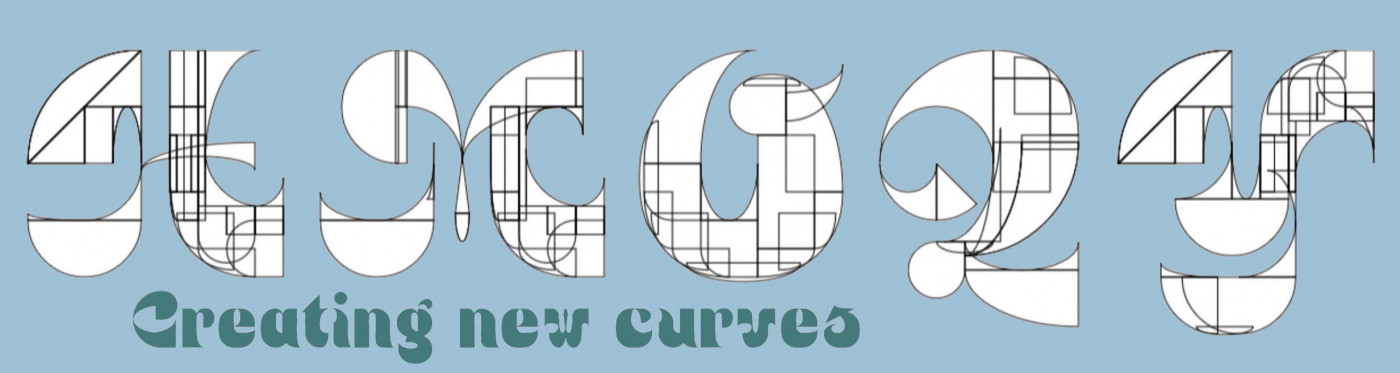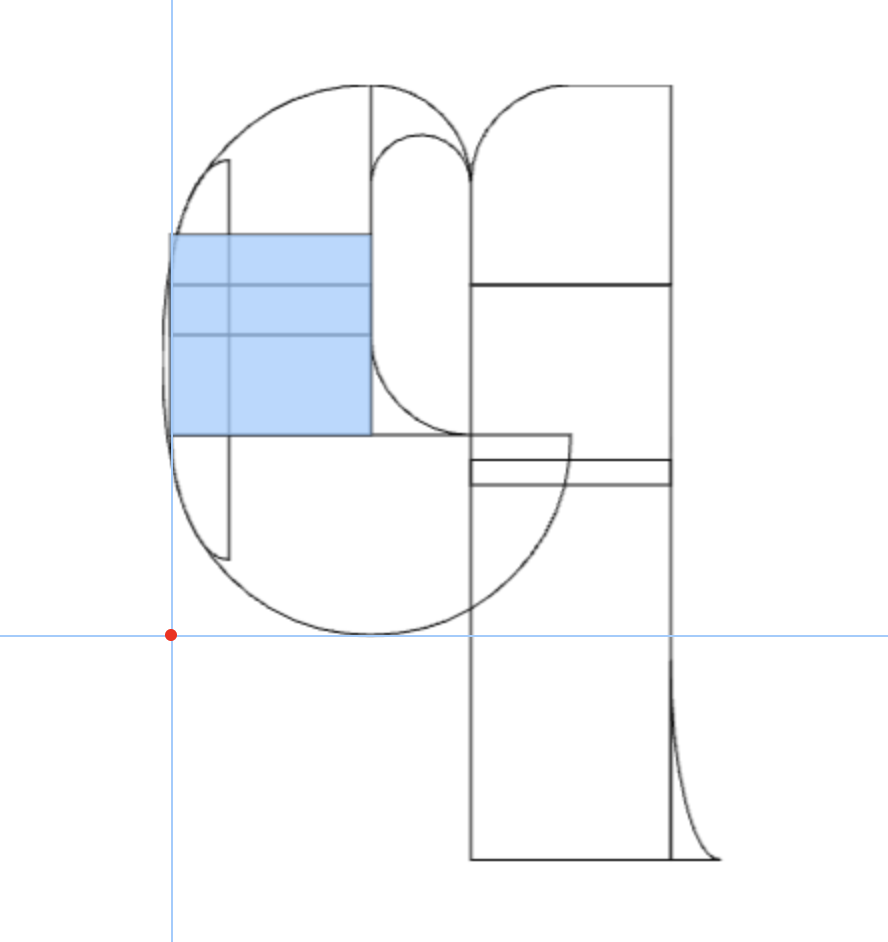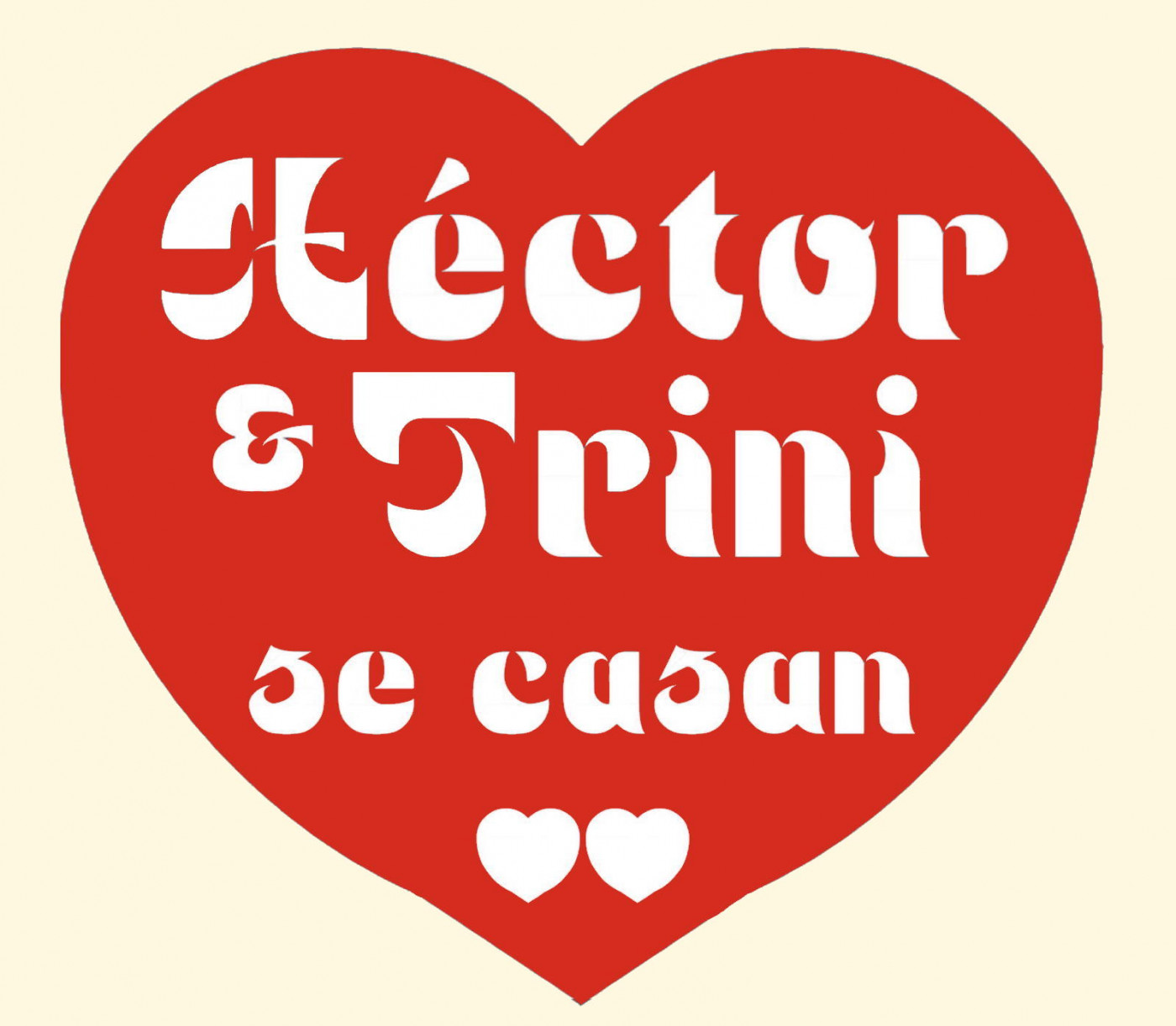
• Esta fuente ha sido hecha para usarla en un día muy especial en la vida de mis adorados Héctor y Trini, que han decidido casarse. ¡Os queremos felices por siempre! ¡Vivan los novios!
Not finished font (kern in progress). An extra "Q" has been added in place of the "©" glyph, and a nice heart symbol appears also at the "™" one. I'll fine-tune some details ASAP, I promise.
This font excels on so many levels. It feels organic, mimics the tradition of handwriting, and radiates genuine happiness. Your style and technique should be taught to young aspiring fontstructors. 10/10
Elmo has ascended to a higher plane
Very your work hard making fonts here, keep on Elmo, you improved a lot! ❤️ 10/10 I see your oldest fonts here, are very good! Keep creating.
Quite a truly excellent font~
Very nice, I had to make me a clone right away :-)
@tortoiseshell & @Peter (Petruuccio): Thank you so much for your kind words and support! Glad you like this multi-curve font. It's hard to achieve smooth "off-format" curves in FS at such a small size, I swear, and many of them could certainly be improved with more time and skill.
Beautifully expressive and internally consistent. Such a brilliant typeface...visually as well as technically.
I cloned ur font to see the blocks. How do you get smaller blocks like that???
@Mythhand: I had to make fairly small bricks to be able to move on this small scale where the curves worked more or less as I wanted. Btw, the x-height is 1 and 3/8 of one grid square. If you point out a brick that interests you, I can show you how I got it.
These blocks look like they were made composite with nothing or just scaled down and in a corner
You can make them as composites that have some dummy brick in the corners to set the ratio when creating them, and then remove the dummy bricks from composite by shift+clicking then and clicking on unvonted parts.
@Mythland, check this underrated tutorial video
@Mythhand: @Peter (Petruuccio) is right. Here you are more info. Btw, my filter ratio here was 2:2, but it works the same way. Anyway, if you need me to be more specific about any of them, just ask.
i decided to clone this to see how you did it and what. this is melting my brain